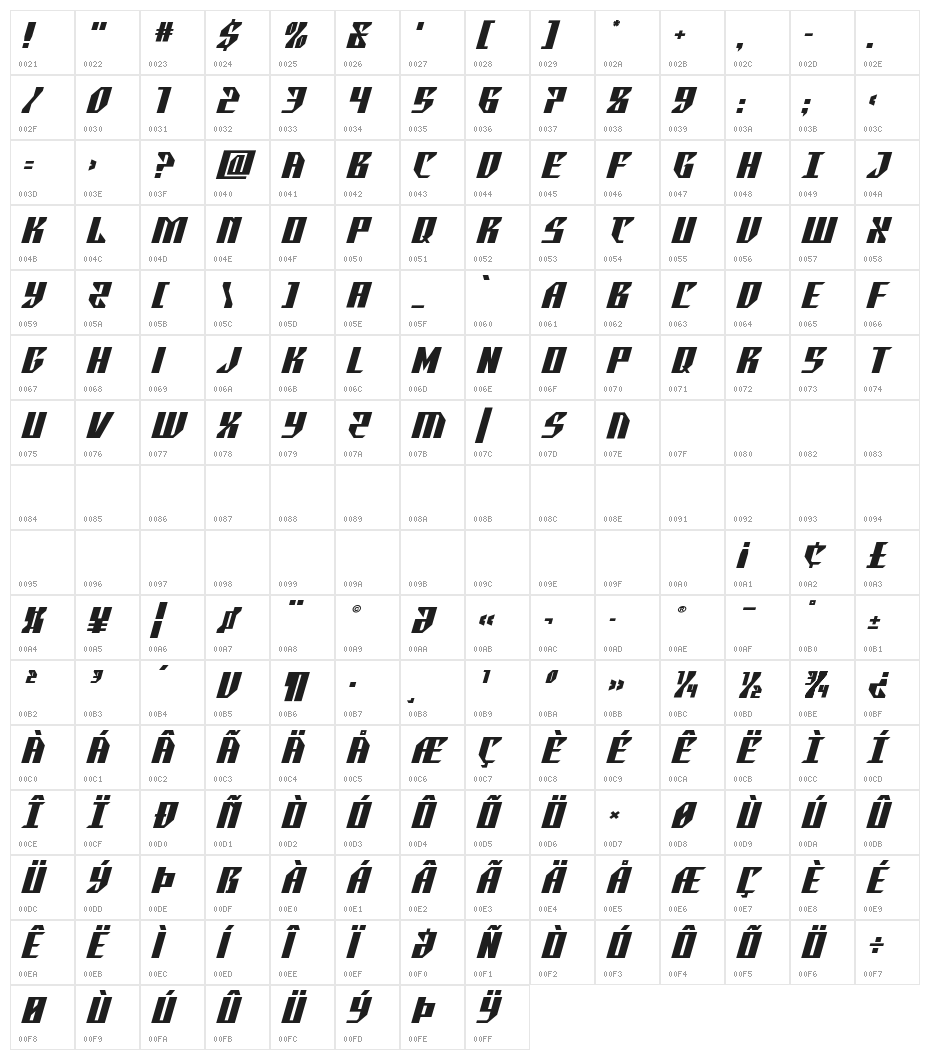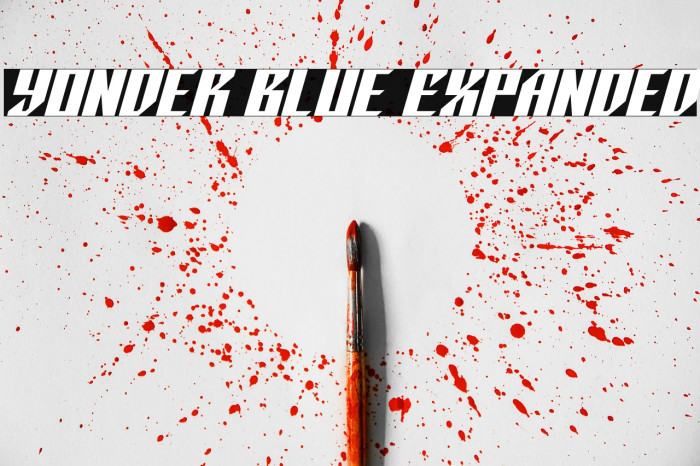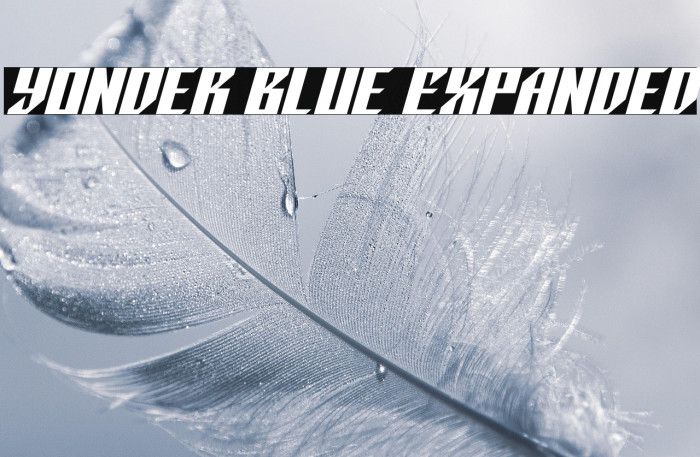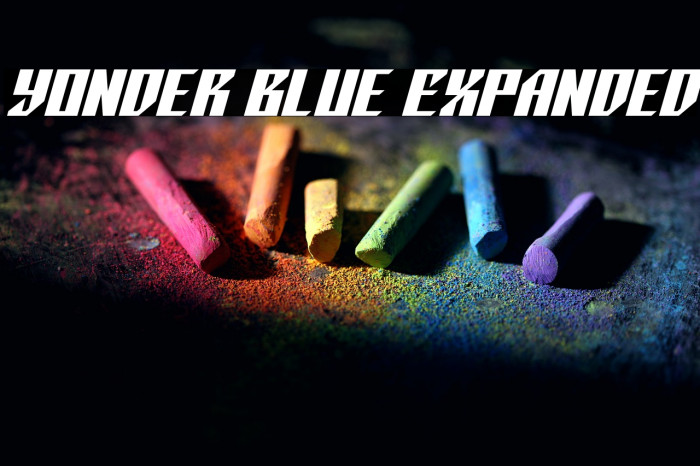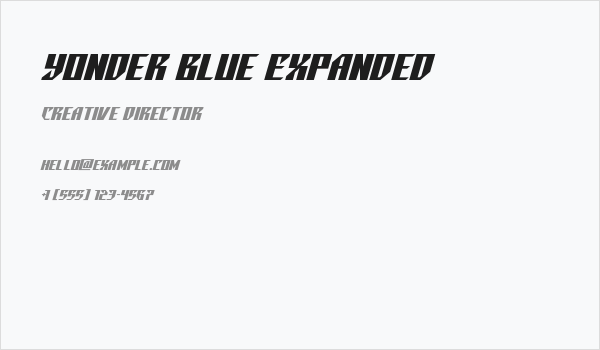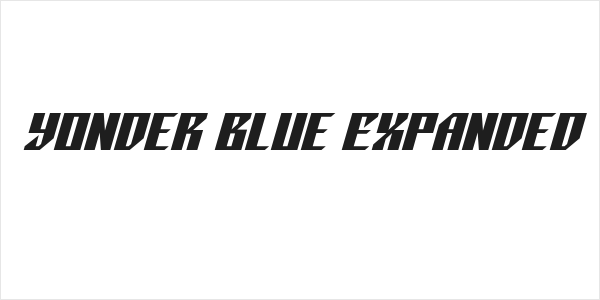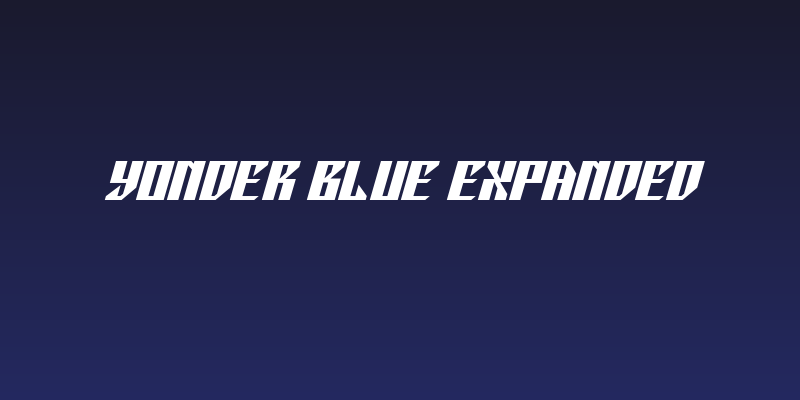
Yonder Blue Expanded Font
Yonder Blue Expanded Description
This font features a bold and dynamic design with sharp, angular lines that convey a sense of speed and modernity. The characters are slightly slanted, adding to the impression of movement and energy. The uppercase letters are particularly striking, with a futuristic aesthetic that is both eye-catching and distinctive. The numbers and special characters maintain this style, ensuring consistency across all elements. The font's expanded width allows for a strong presence, making it suitable for impactful headlines and attention-grabbing designs.